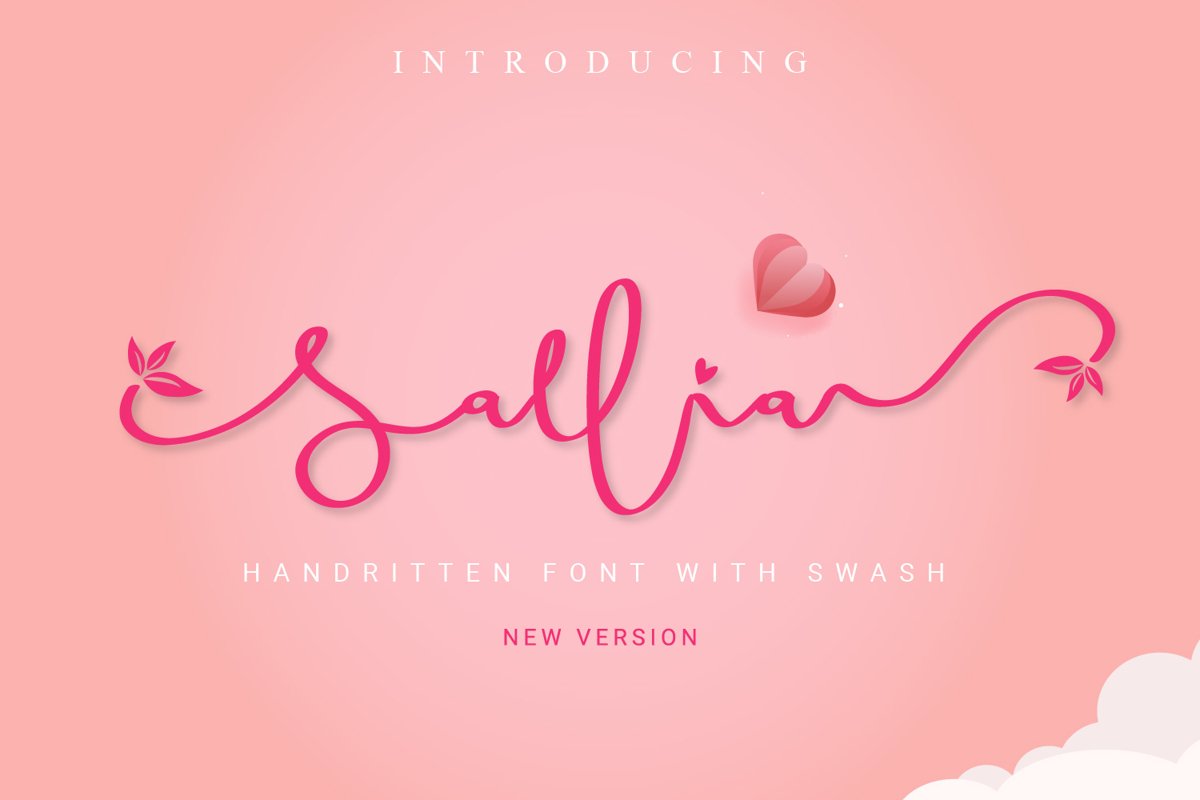
Sallia Handwritten / Swash
Sallia Handwritten
Sallia is a gorgeous script with friendly and cute swashes. Get inspired by its romantic charm!
Sallia handwritten font: is perfect for branding projects, logo, wedding designs, social media posts, advertisements, product packaging, product designs, label, photography, watermark, invitation, stationery, and any projects that need handwriting taste.